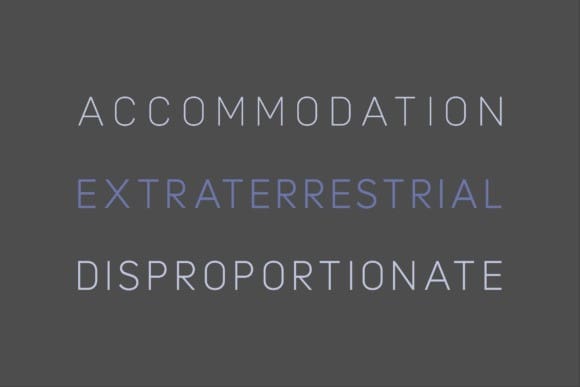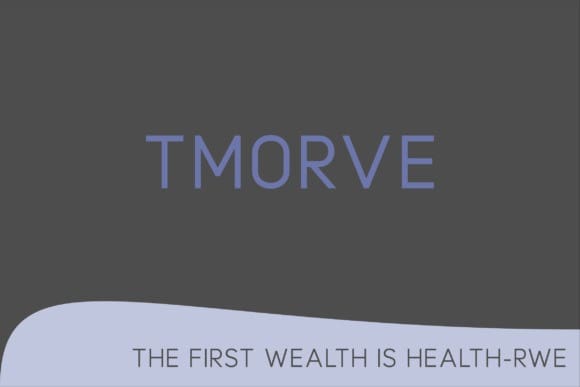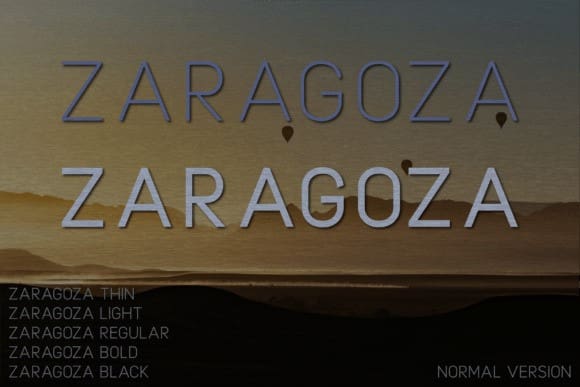
Zaragoza Font Family
Zaragoza Font, a pristine blend of understated elegance and sleek minimalism. This sans serif font family comes in five uniquely different weights, forming a perfect harmony between contemporary chic and opulent luxury. Precision-crafted to the highest degree, the ZaragozaFont elevates any project – be it an avant-garde magazine, a sophisticated logo, or an edgy film poster – with an effortless touch of class. Experience a perfect equilibrium of sophistication and simplicity, propelling your designs into an era of timeless allure. Harness the exceptional potential of the Zaragoza Font family in your creative endeavours.